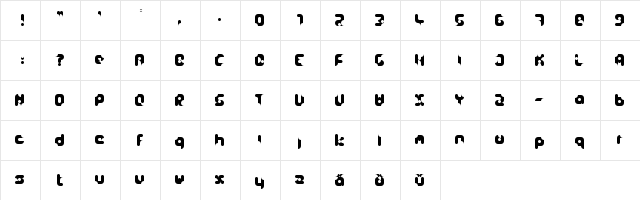
Tasty Glyphs.1 Regular Font Preview
Tasty Glyphs.1 Regular
| Designer | Frederic F. |
Design Context for Tasty Glyphs.1 Typeface
Tasty Glyphs.1 is a composed and adaptable typeface that performs quietly and consistently across a wide range of design contexts.